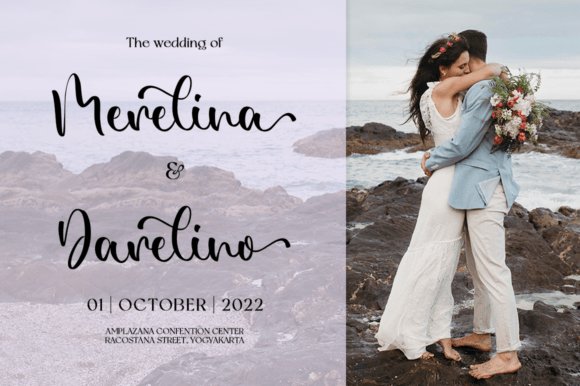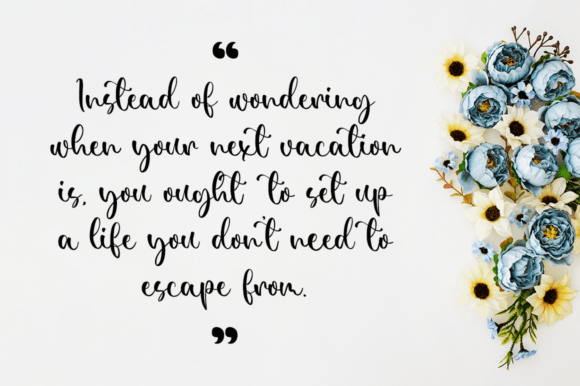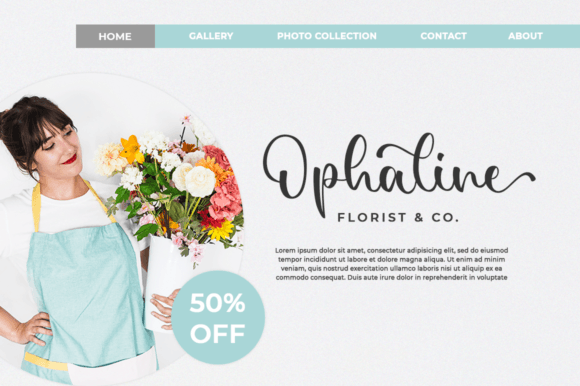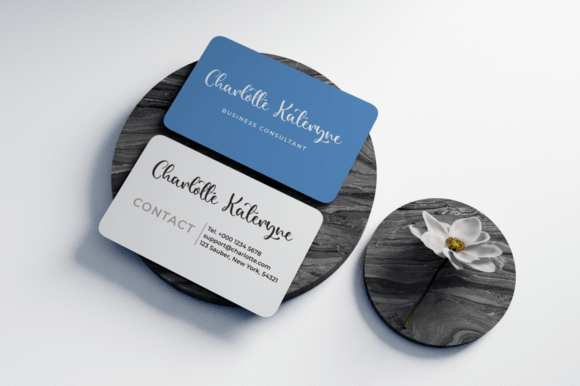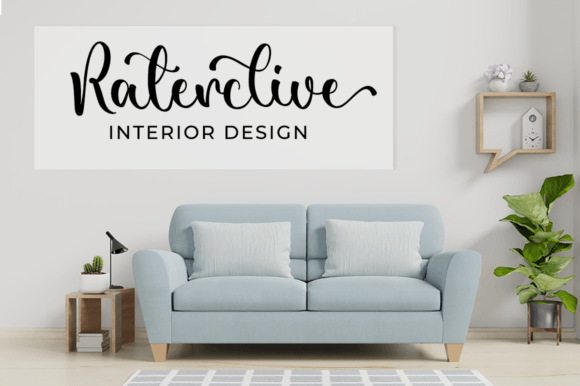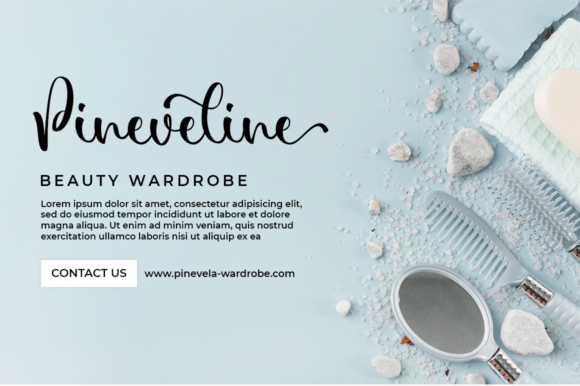
Introducing Bluestone Font: Elevate Your Designs with Elegance and Class
Are you searching for a font that adds a touch of sophistication and refinement to your designs? Look no further than Bluestone Font, a lovely and delicate script font that exudes elegance and class. This stunning font is perfect for designers and crafters who need a beautiful and refreshing look to enhance their creative projects.
What Makes Bluestone Font Special?
Bluestone Font is a unique and captivating script font that is sure to make your designs stand out. Its delicate and elegant strokes make it perfect for a variety of design applications, from wedding invitations and branding materials to packaging and digital media. The font’s classic and timeless look ensures that your designs will remain stylish and relevant for years to come.
One of the standout features of Bluestone Font is its PUA (Private Use Area) encoding. This means that you can access all of the font’s glyphs and swashes with ease, giving you greater flexibility and creative control over your designs. With PUA encoding, you can easily insert special characters, ligatures, and swashes to add a personal touch to your designs.
Bluestone Font is a versatile font that is perfect for a wide range of design applications. Whether you’re a professional designer or a crafter, this font is sure to become a staple in your design toolkit. Here are just a few ways you can use Bluestone Font:
- Wedding Invitations: Create beautiful and elegant wedding invitations that set the tone for a special day.
- Branding Materials: Use Bluestone Font to create stunning branding materials, such as logos, business cards, and letterheads.
- Packaging: Add a touch of elegance to your packaging designs with Bluestone Font.
- Digital Media: Use Bluestone Font to create engaging and stylish digital media, such as social media graphics and blog posts.
Tips for Using Bluestone Font
To get the most out of Bluestone Font, here are a few tips to keep in mind:
- Pair with Other Fonts: Experiment with pairing Bluestone Font with other fonts to create a unique and stylish look.
- Use Swashes and Glyphs: Take advantage of Bluestone Font’s PUA encoding to add special characters, ligatures, and swashes to your designs.
- Adjust Font Size: Experiment with different font sizes to create visual interest and hierarchy in your designs.
Bluestone Font is a beautiful and elegant script font that is perfect for designers and crafters who need a refreshing and sophisticated look for their designs. With its PUA encoding and versatile design, Bluestone Font is sure to become a staple in your design toolkit. Whether you’re creating wedding invitations, branding materials, or digital media, Bluestone Font is the perfect choice for adding a touch of elegance and class to your designs.